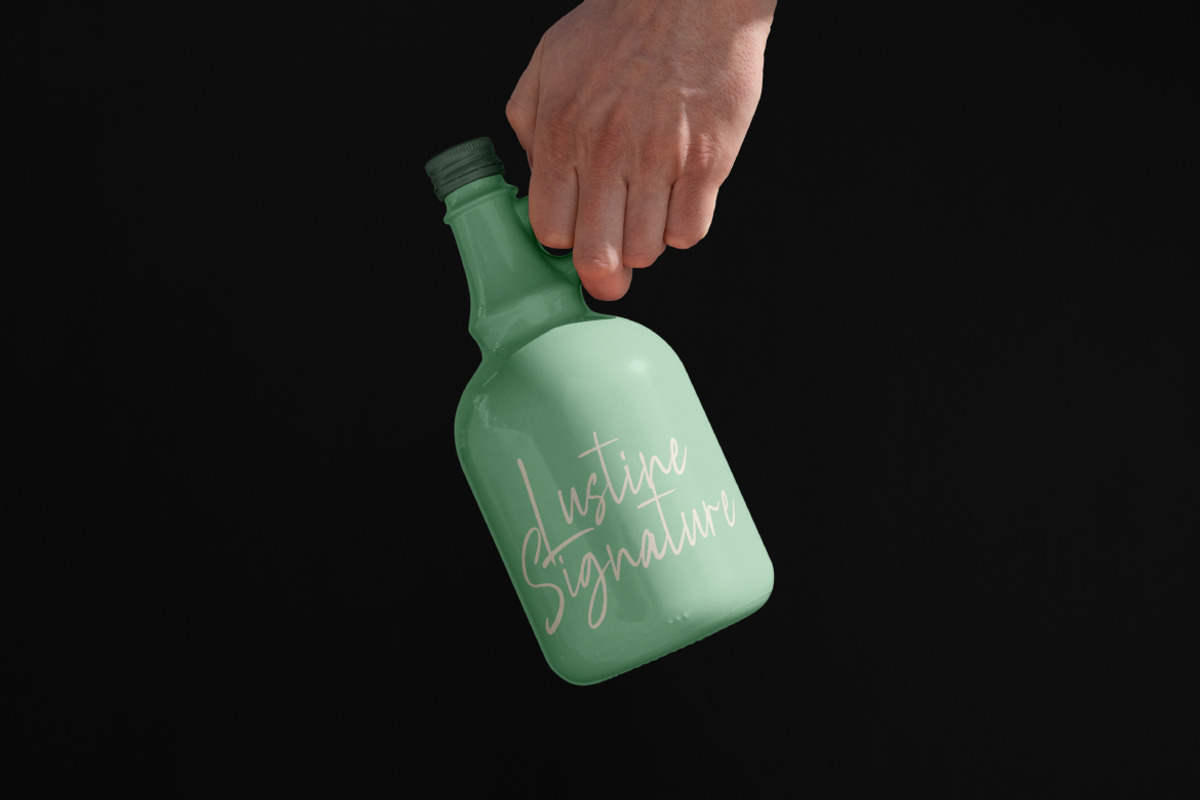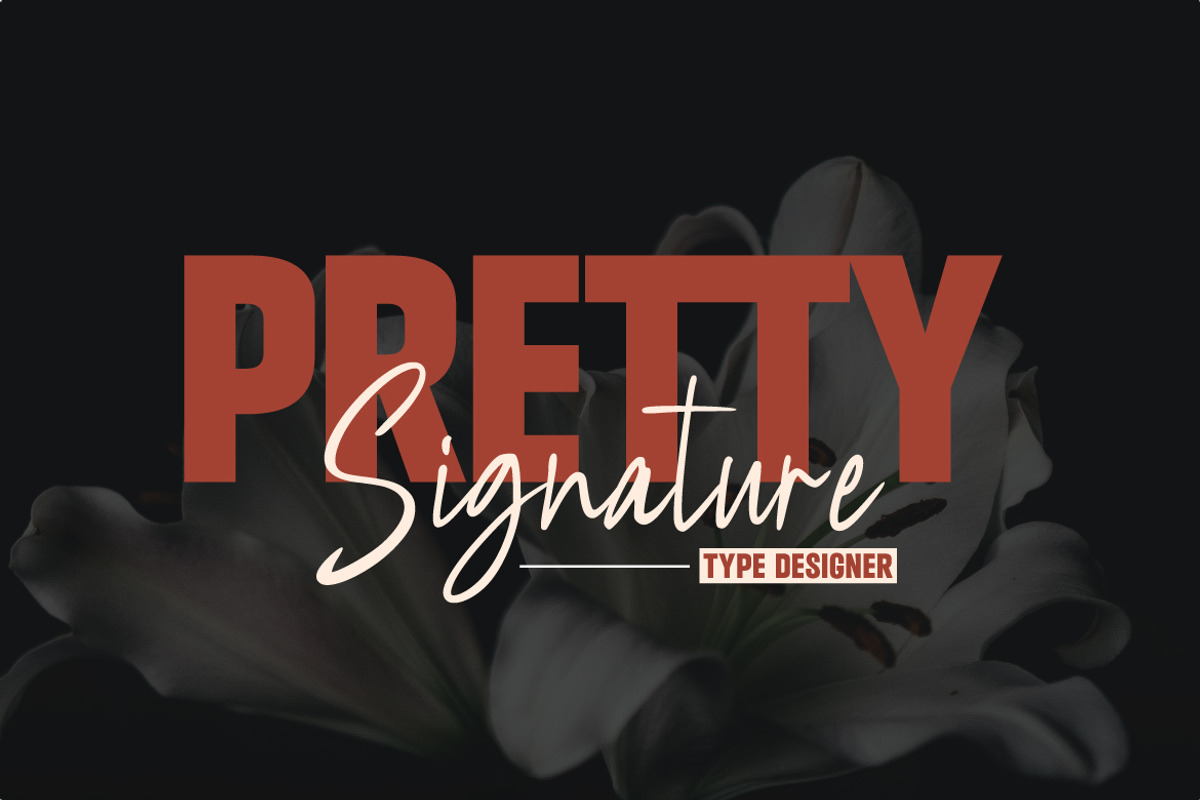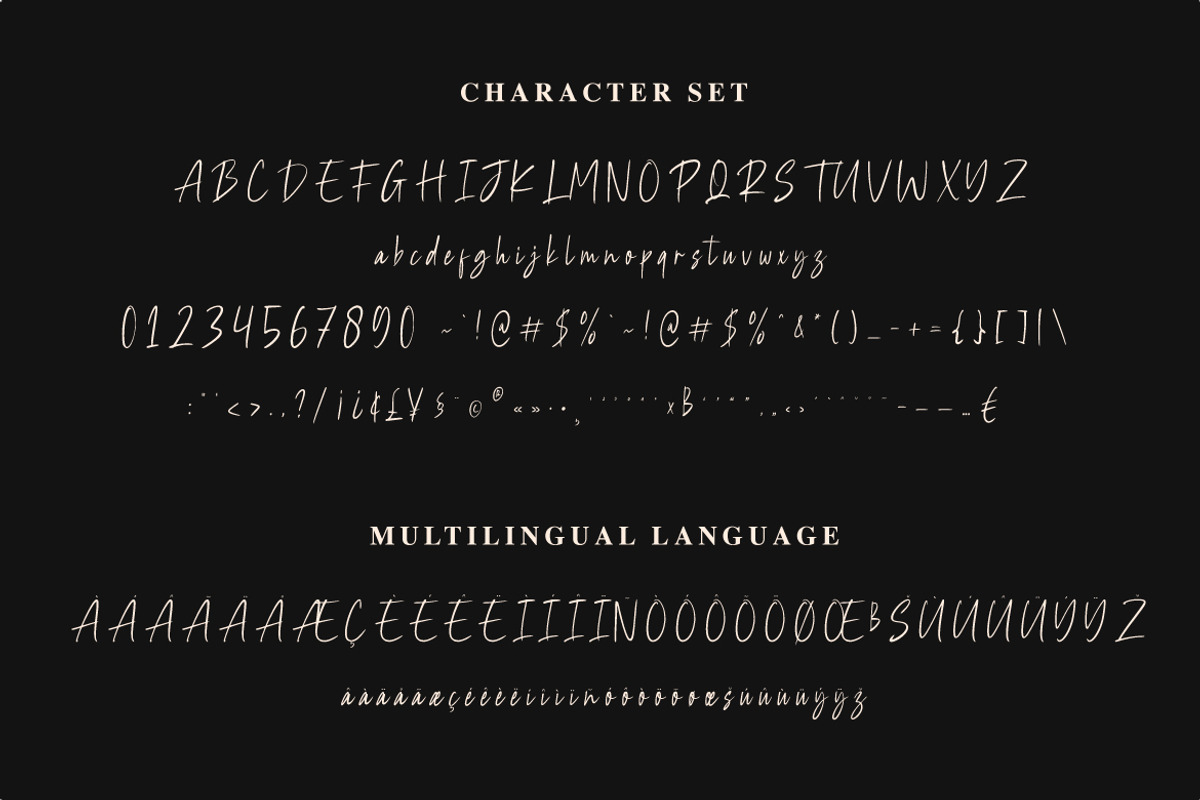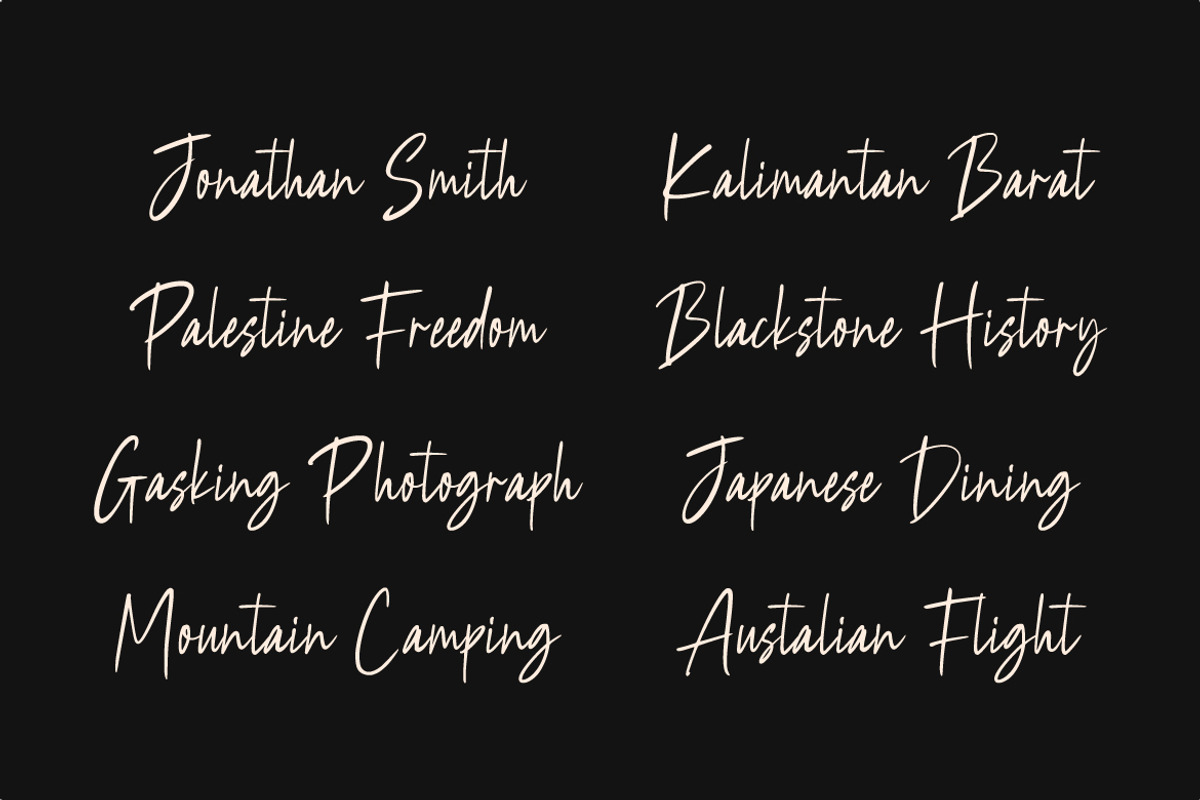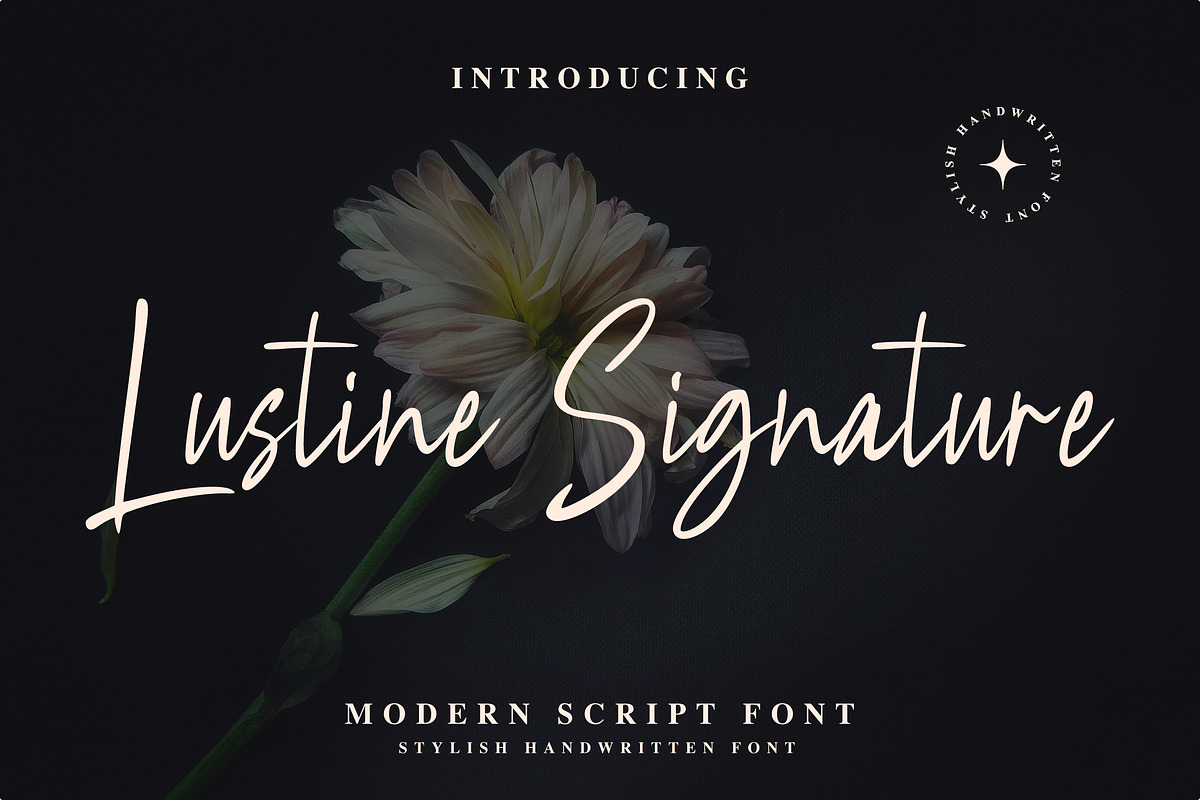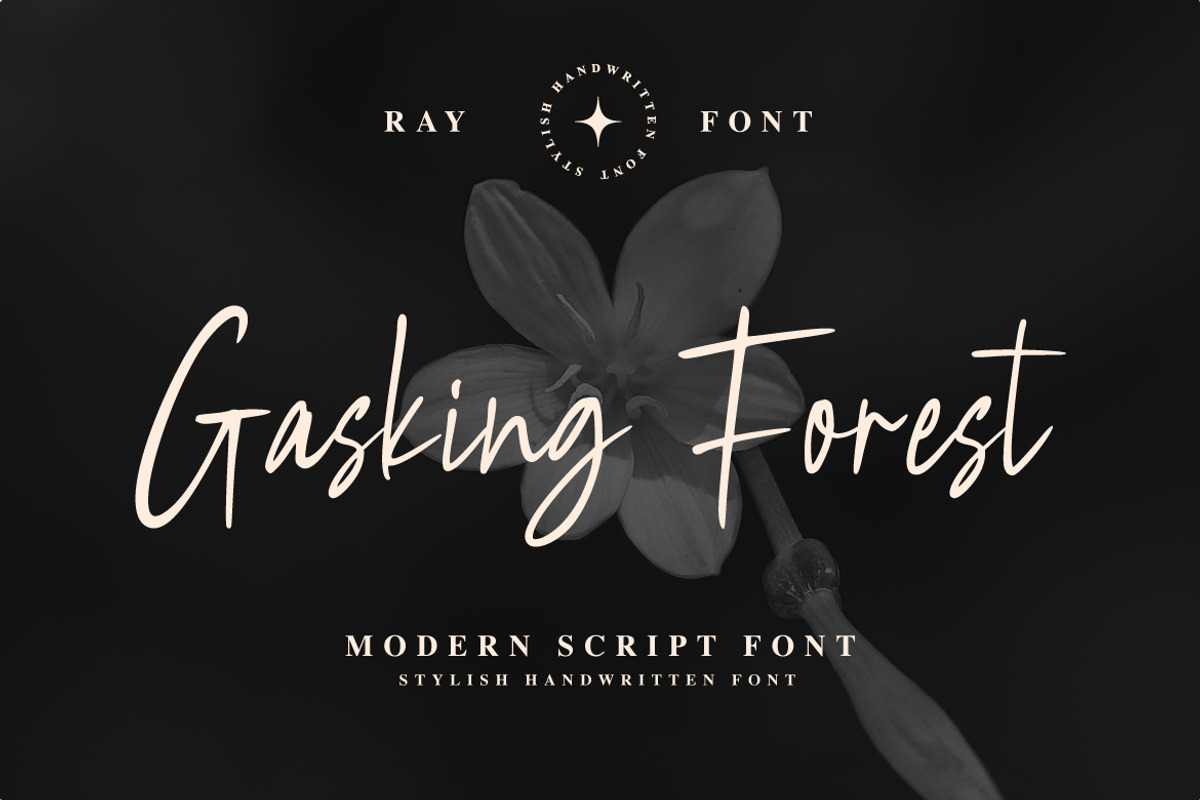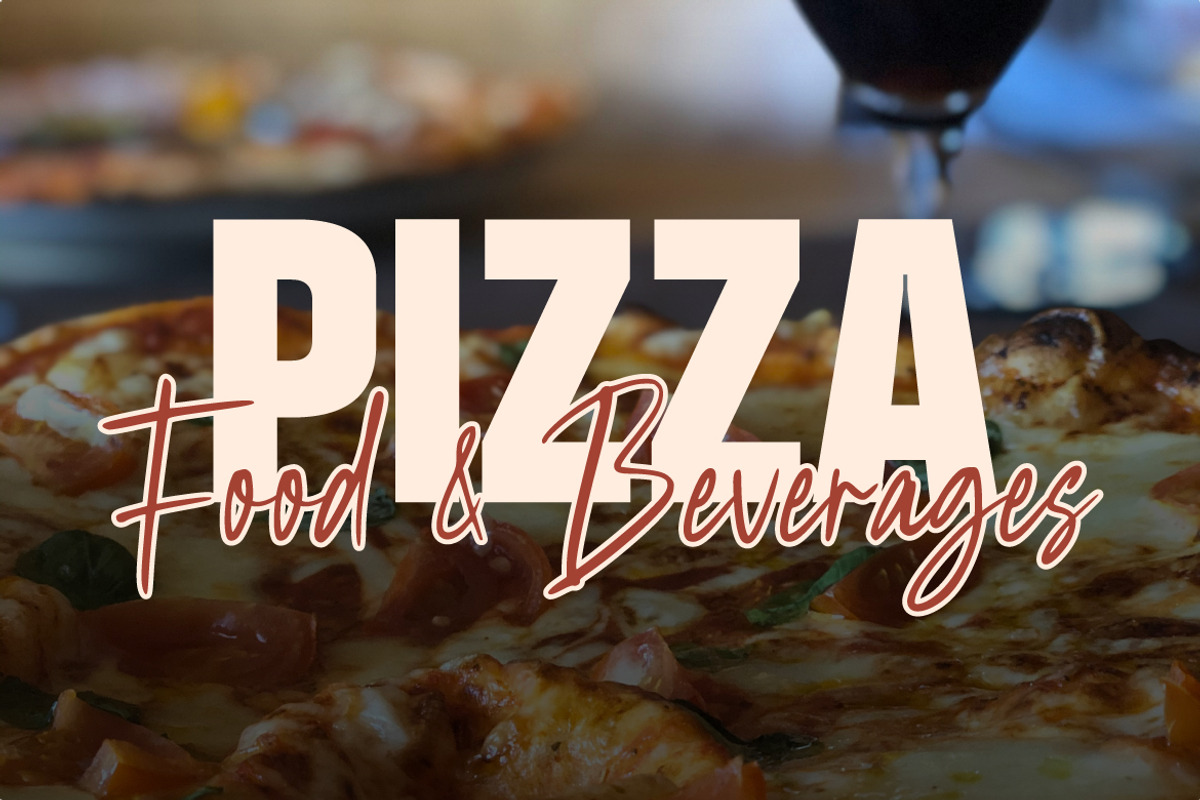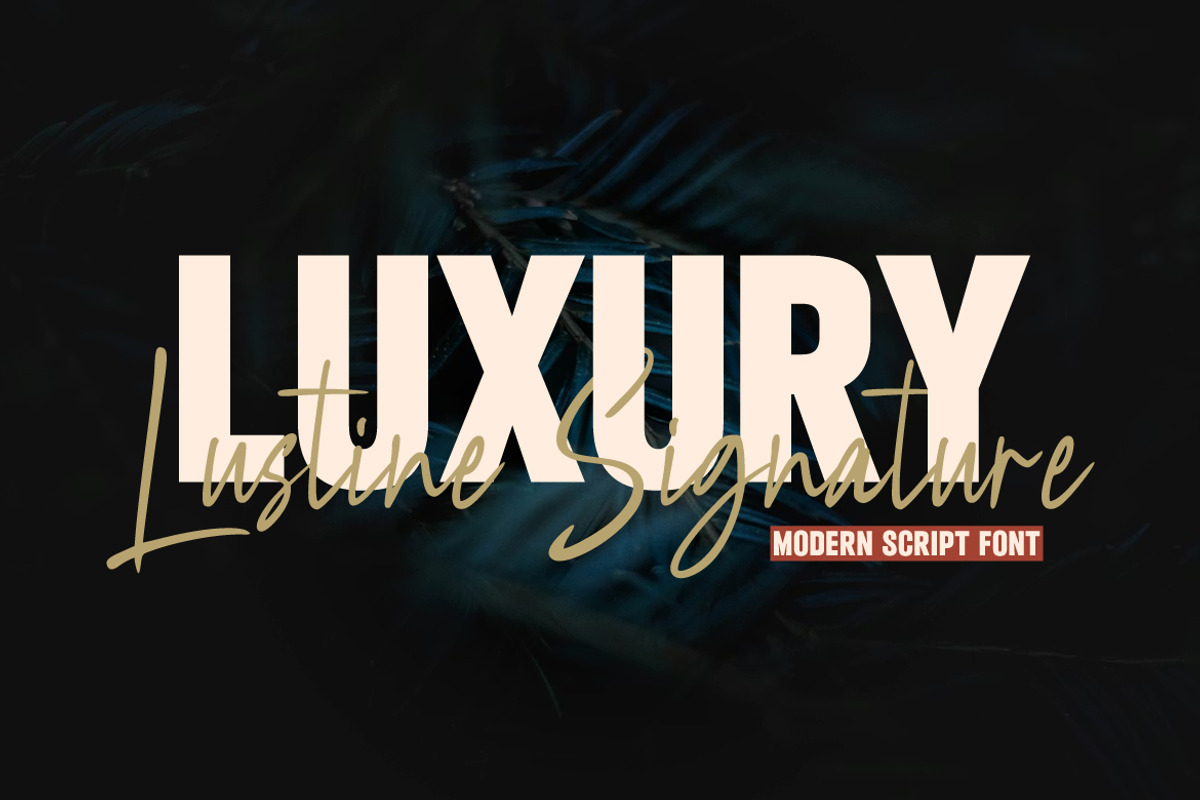
Lustine Signature – Modern Script
Lustine Signature is a modern handwritten script font designed to bring elegance, warmth, and personality to your designs. Featuring smooth strokes and natural signature-style lettering, this font works beautifully for luxury branding, logos, packaging, editorial layouts, and lifestyle visuals. With a clean yet expressive character, Lustine Signature is perfect for food & beverage branding, fashion, beauty products, social media graphics, invitations, and creative typography projects. It includes a complete character set with multilingual support, making it flexible for both personal and commercial use.
- Branding & logo design
- Packaging & product labels
- Food & beverage visuals
- Luxury & lifestyle designs
- Posters, social media, and editorial layouts